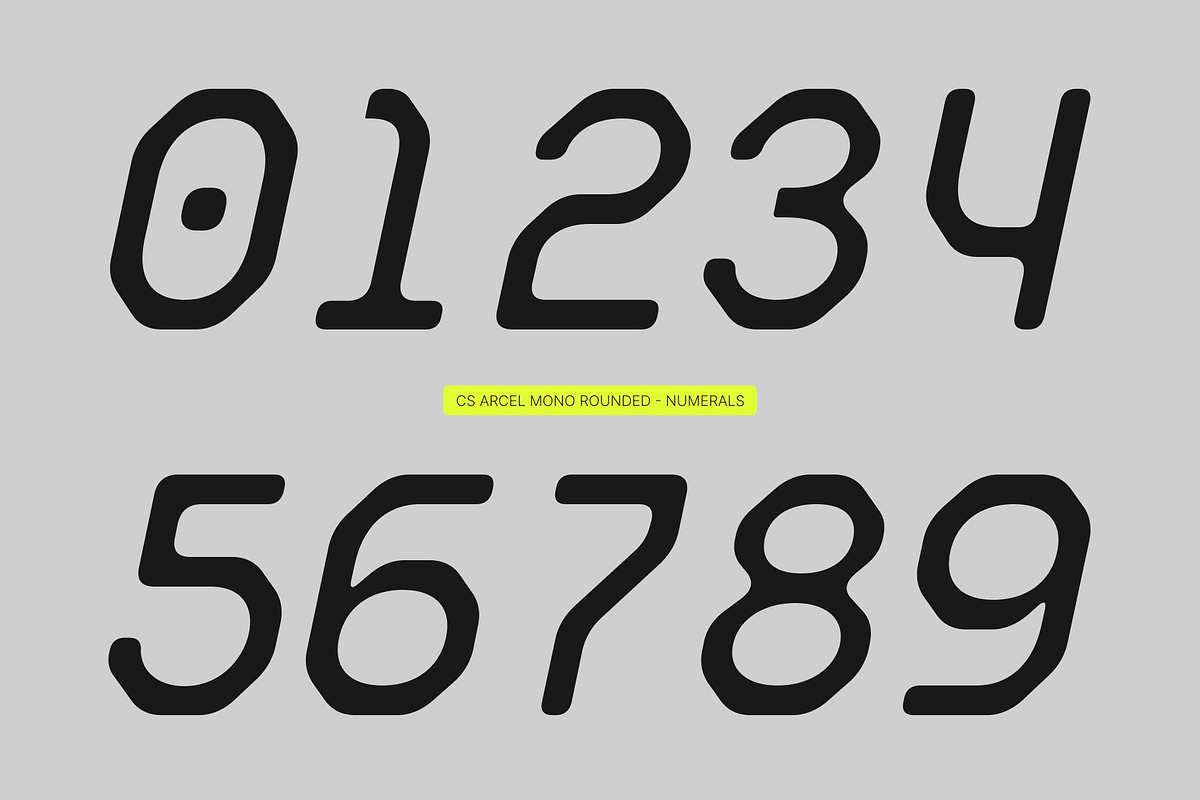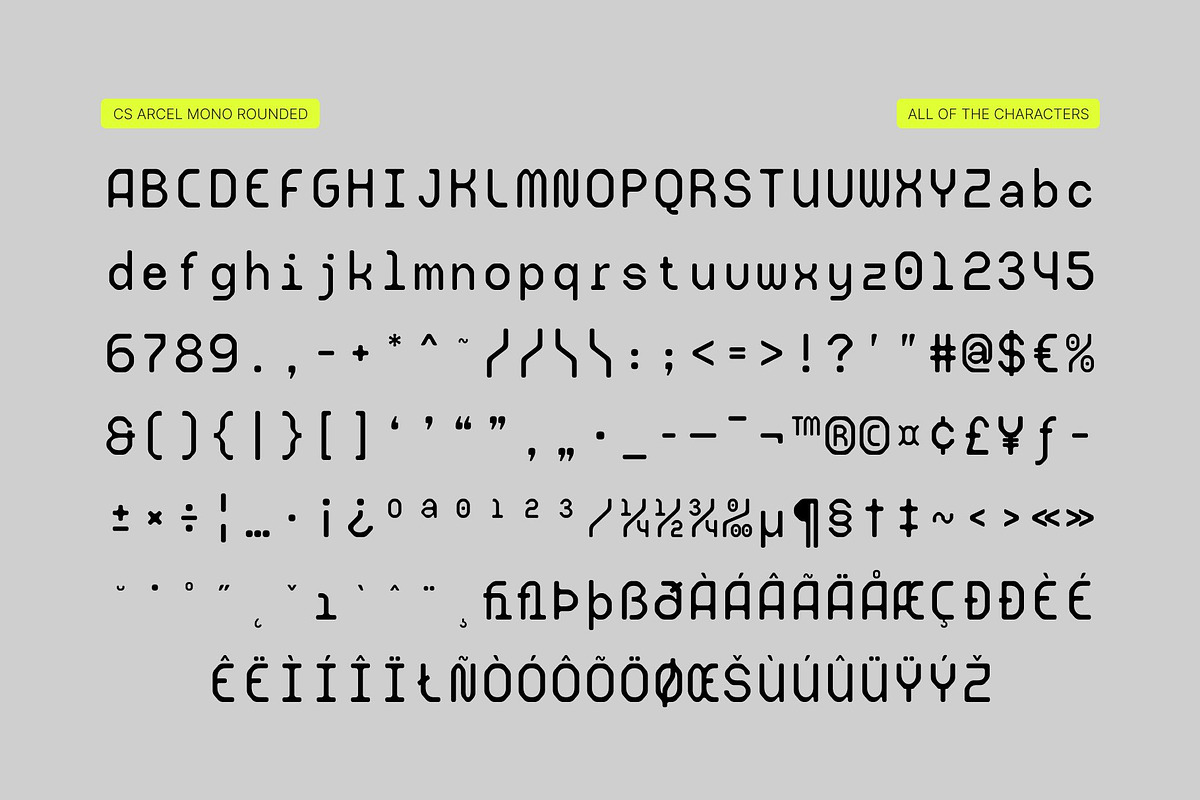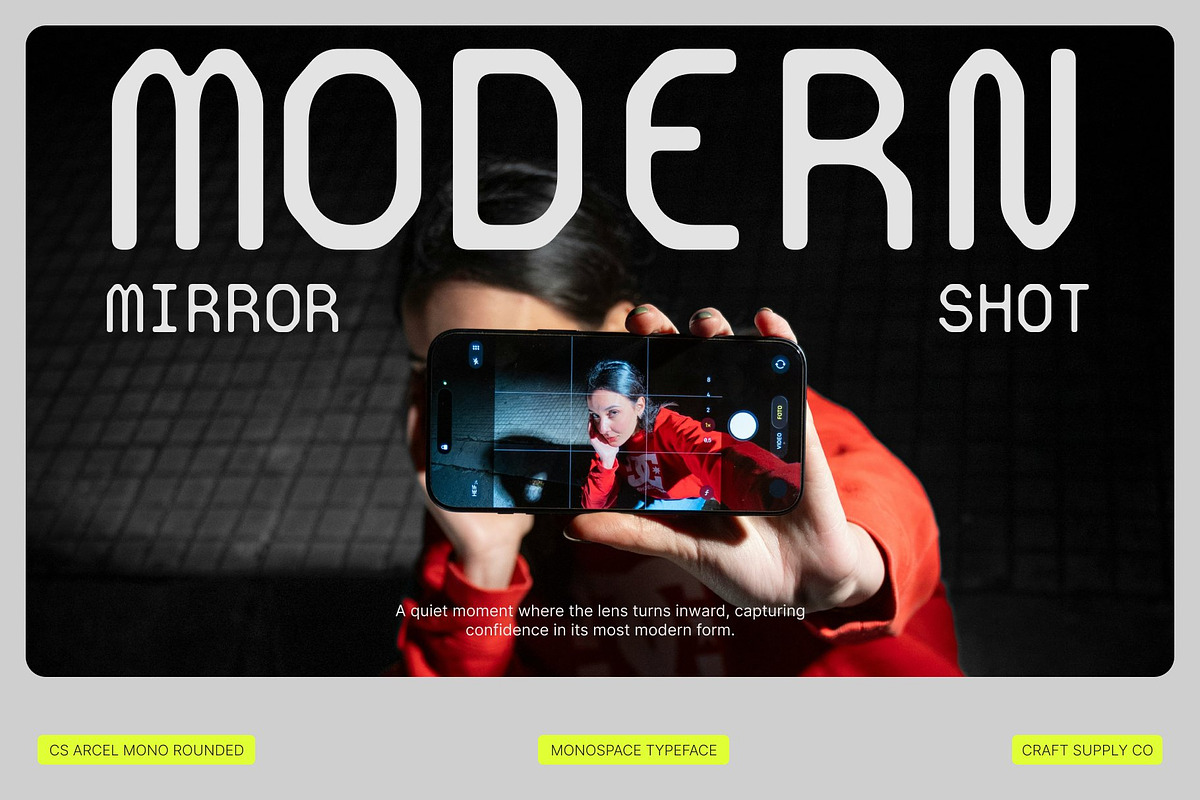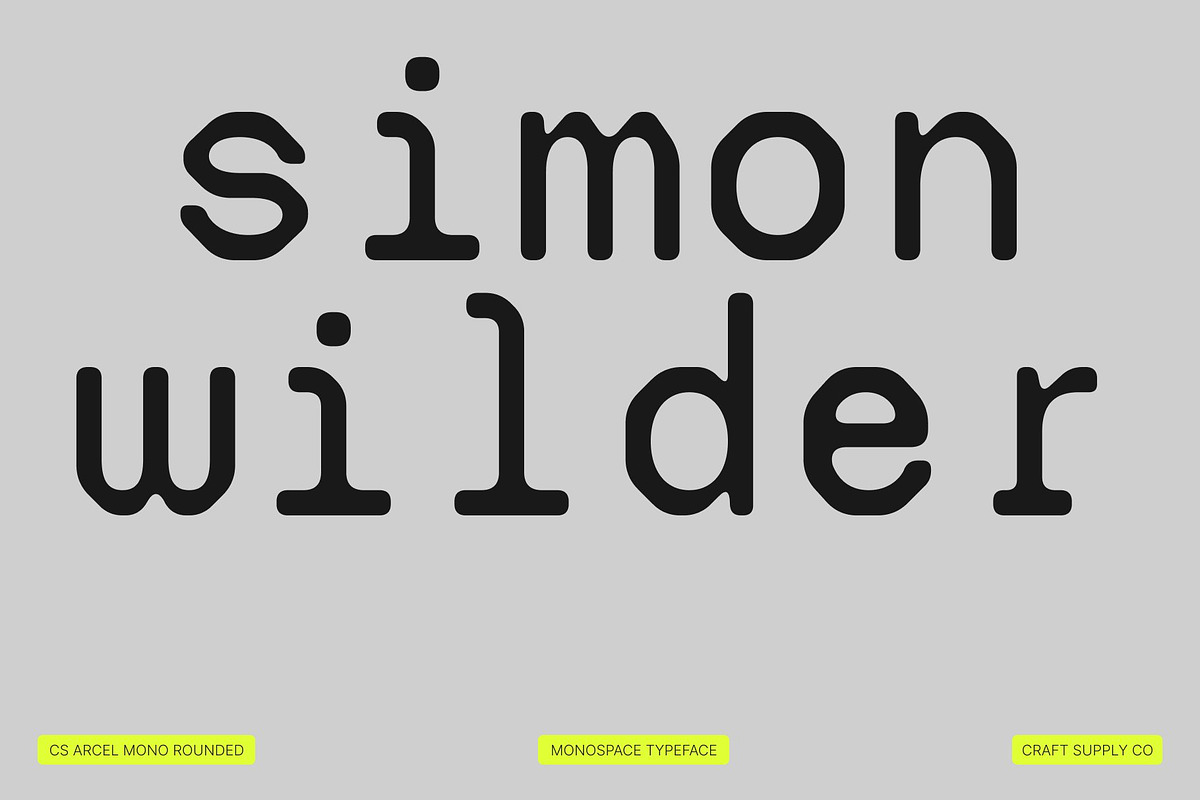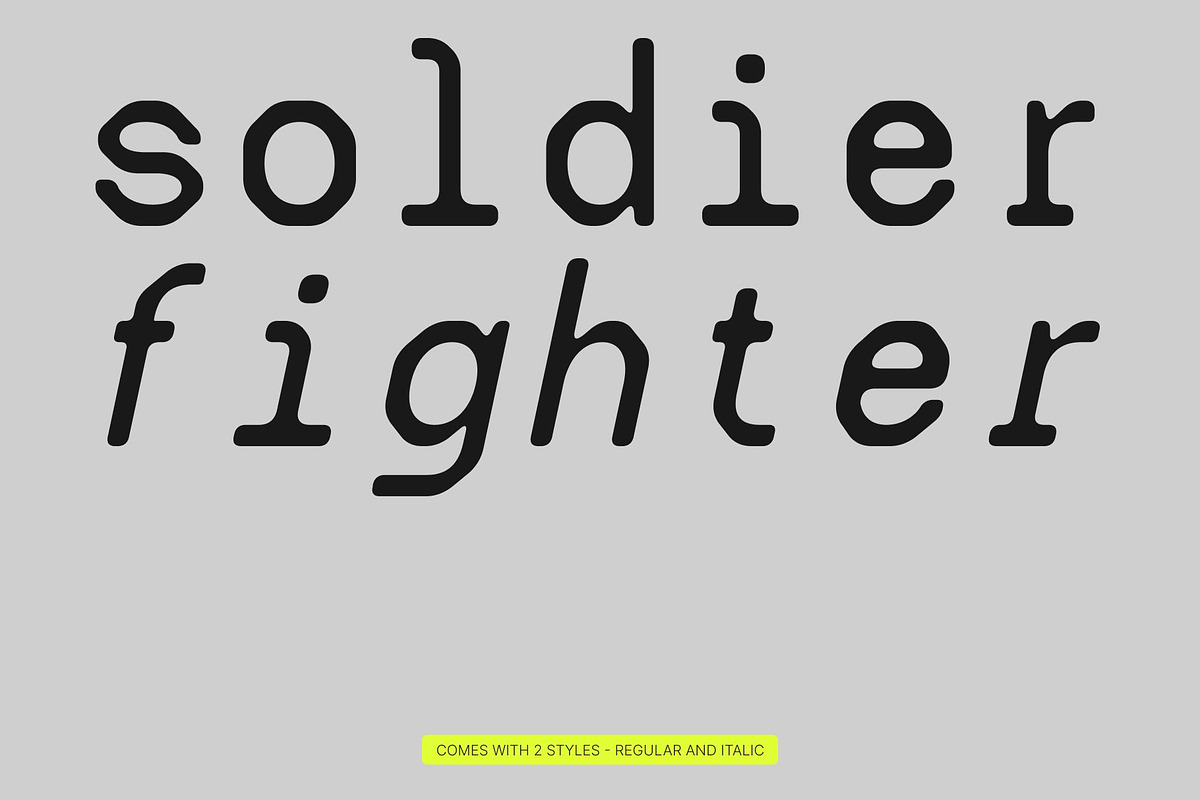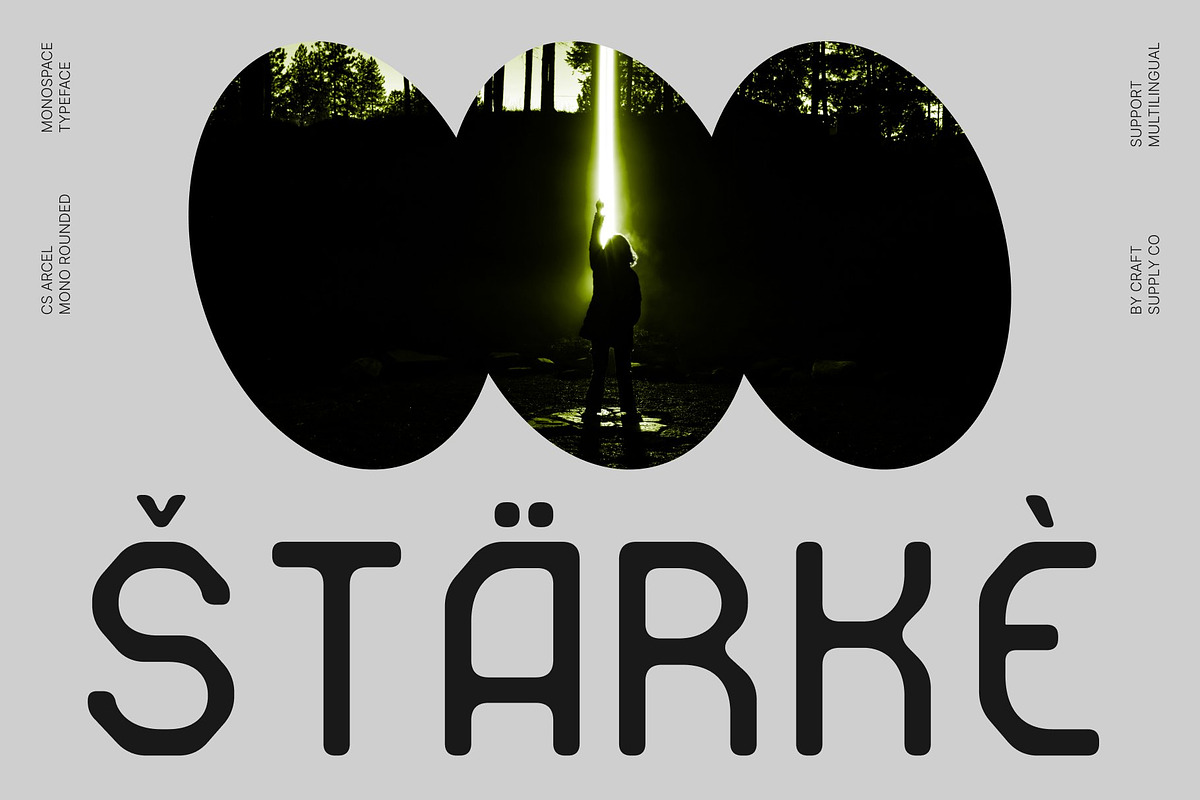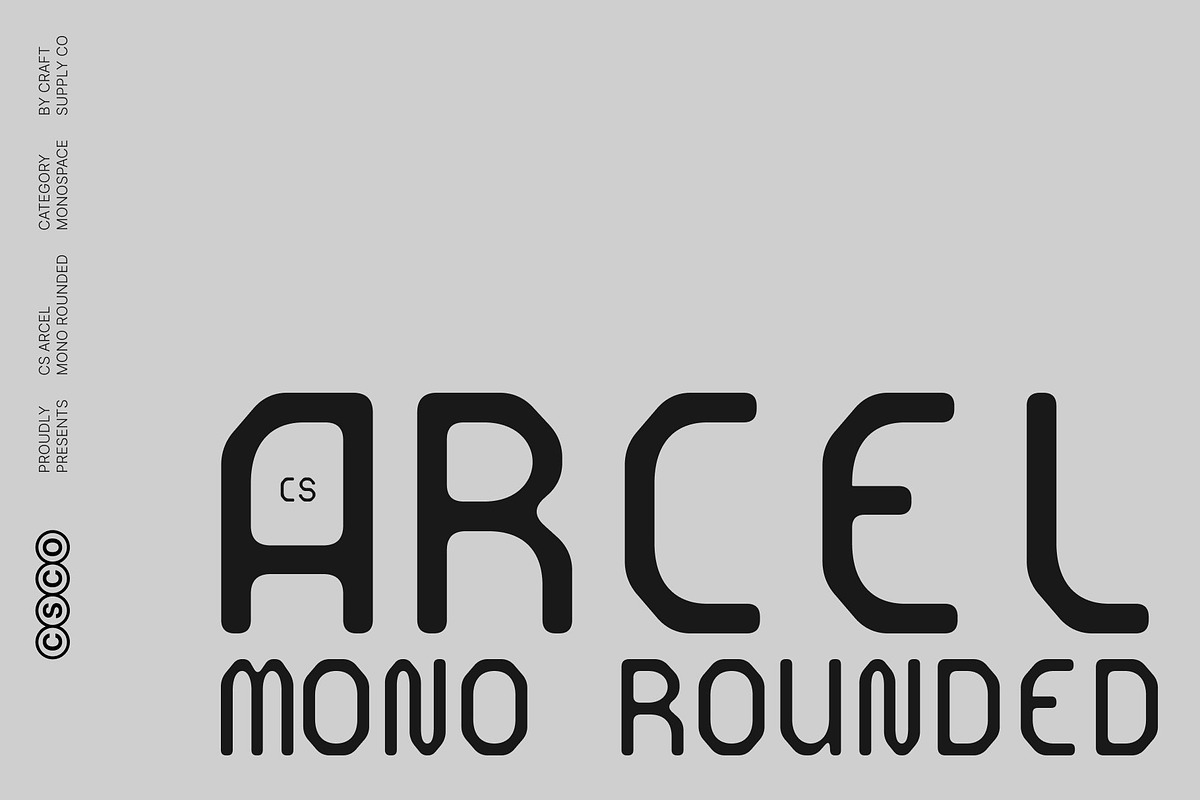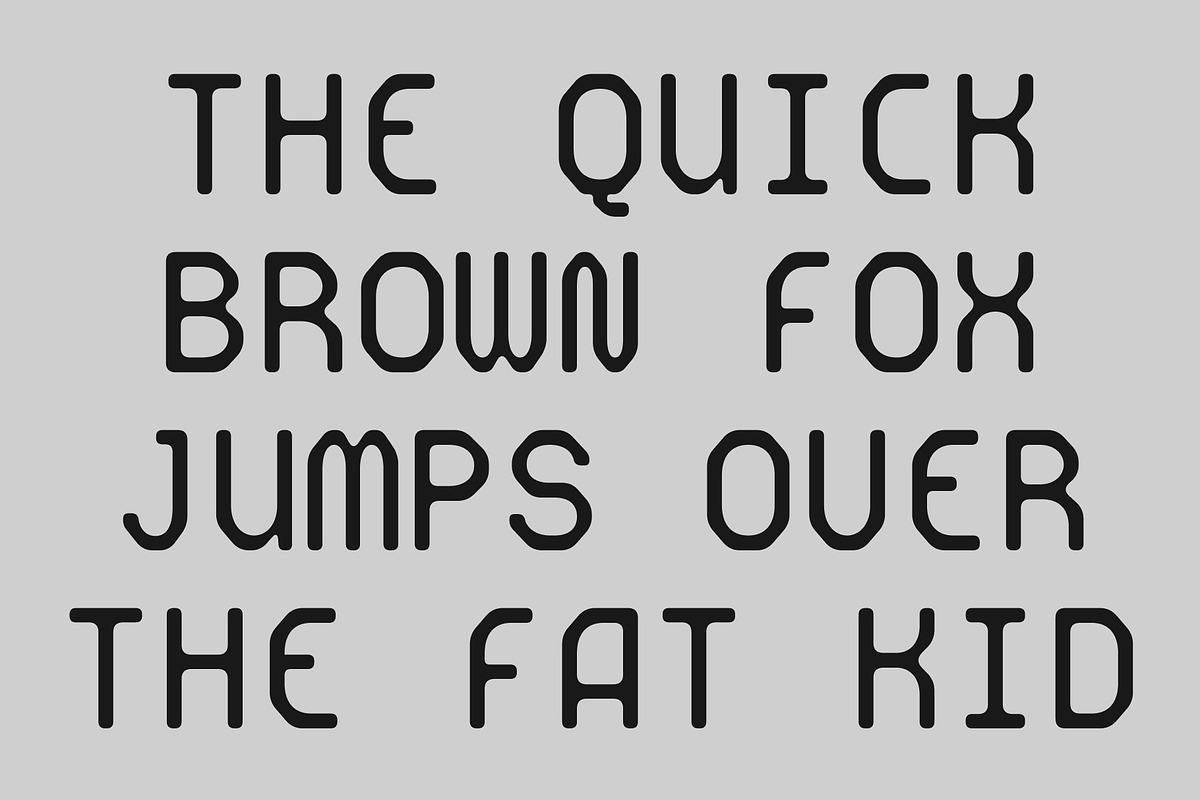
CS Arcel Mono Rounded
Monospaced Sans Serif Rounded Font
Monospaced Structure for Perfect Alignment This is a monospaced sans serif font where every character occupies the same horizontal space, ensuring consistent alignment and a perfectly organized layout. This uniform structure enhances clarity and precision, making it ideal for technical documents, coding environments, and tabular data.
Optimized for Coding and Technical Use Designed for programming interfaces and text editors, its even character width guarantees accurate alignment across lines of code. The clean, highly readable letterforms support focus and comprehension, creating a smooth and efficient reading experience in technical settings.
Rounded Forms with a Friendly Impression What sets this font apart is its softened geometry. The rounded edges introduce a clean, modern, and approachable character, balancing technical precision with warmth. This subtle softness makes the font feel less rigid while maintaining its professional integrity.
Versatile for Modern Minimalist Design Beyond technical applications, this font adapts seamlessly to contemporary design projects. Its structured yet friendly appearance makes it suitable for branding, user interfaces, web design, packaging, logos, headlines, and modern visual materials that require both clarity and personality.